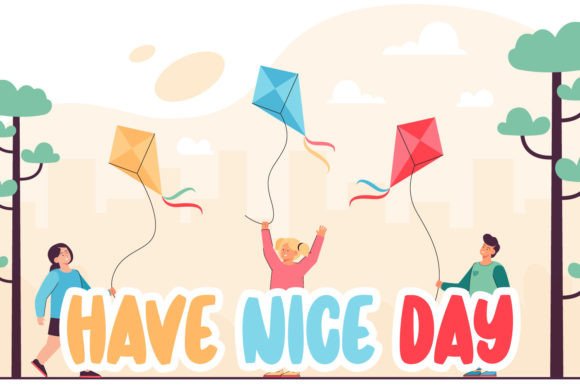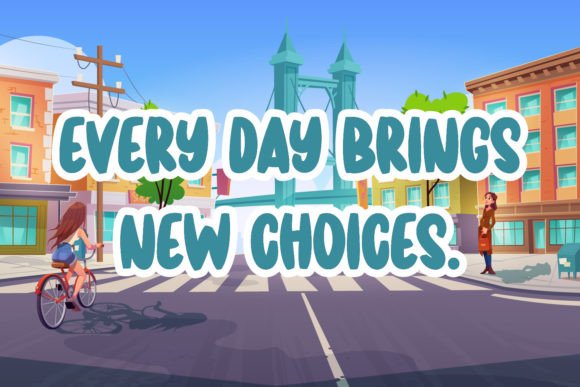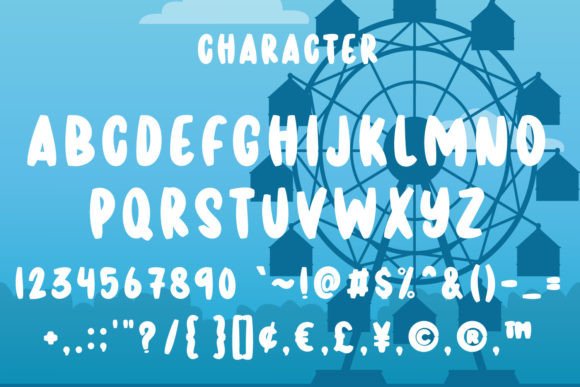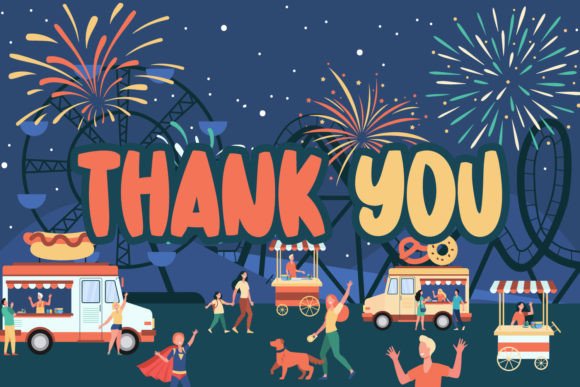
Embracing the Fun and Playfulness of Childhood
Who among us hasn’t scribbled out a creative masterpiece in childhood, only to be proudly displayed on the fridge for all to see? Those carefree moments of self-expression are the foundation of our creativity, and the perfect canvas for unleashing our imagination. In the world of design, capturing that same sense of playfulness and authenticity is crucial for connecting with our audience, especially when it comes to children’s activities and projects.
Enter California Kids Font, a charming display font that embodies the very essence of childhood wonder. This font is designed to be the perfect companion for any children’s activity or school project, bringing a touch of whimsy and fun to every design. For designers, California Kids Font is a valuable asset, offering a unique blend of playfulness and authenticity that can elevate any project and make it stand out from the crowd.
California Kids Font Key Features
- Font Family: California Kids, a fun and playful sans-serif font designed specifically for children’s educational materials.
- Character Set: Supports a wide range of characters, including Latin, Cyrillic, and Greek alphabets, making it suitable for multilingual content.
- Size: Designed to be highly legible at various font sizes, from 12 to 48 points, making it ideal for body text, headings, and titles.
- Unique Characteristics: Features rounded corners, smooth lines, and a friendly tone, making it perfect for children’s books, educational materials, and websites targeting a young audience.
California Kids Font Review
Overall, I think California Kids Font is a charming and playful font that can add a lot of personality to your designs ✨. Its fun, laid-back vibe makes it perfect for projects that need a California-inspired feel. The font’s friendly and approachable nature makes it a great choice for kid-friendly materials, educational content, and even some lifestyle branding.
- Unique, hand-drawn feel that’s sure to grab attention ✨
- Works well for titles, headings, and short blocks of text
- Perfect for projects that need a relaxed, beachy vibe
However, there are some limitations to consider ⚠️. The font can be a bit difficult to read in smaller sizes, and it may not be the best choice for long blocks of text or formal content. Additionally, the font’s uniqueness can sometimes make it feel a bit inconsistent or unpredictable.
Overall, I’d recommend California Kids Font for designers who want to add a bit of whimsy and personality to their projects ✨. Just be mindful of the font’s limitations and use it thoughtfully to get the best results.
Getting the Most Out of California Kids Font
Here are some tips for getting the most out of California Kids Font:
- Use it for titles and headings to add a playful touch to your design.
- Combine it with other fonts to create a unique and eye-catching visual identity.
- Experiment with different font sizes and styles to add emphasis to your text.